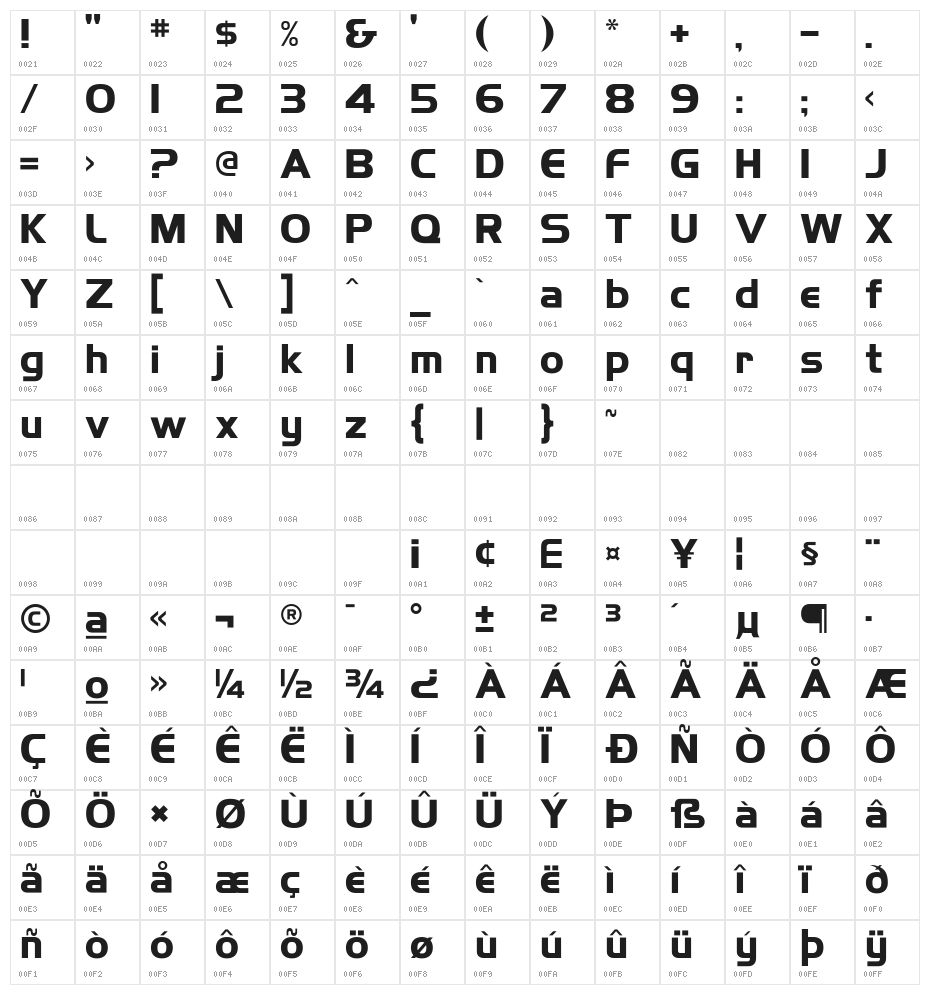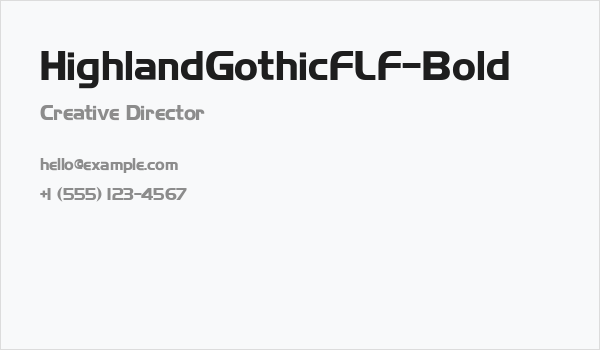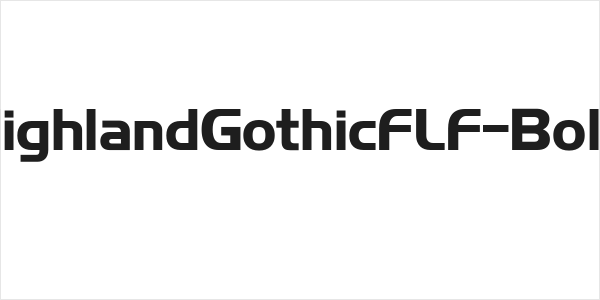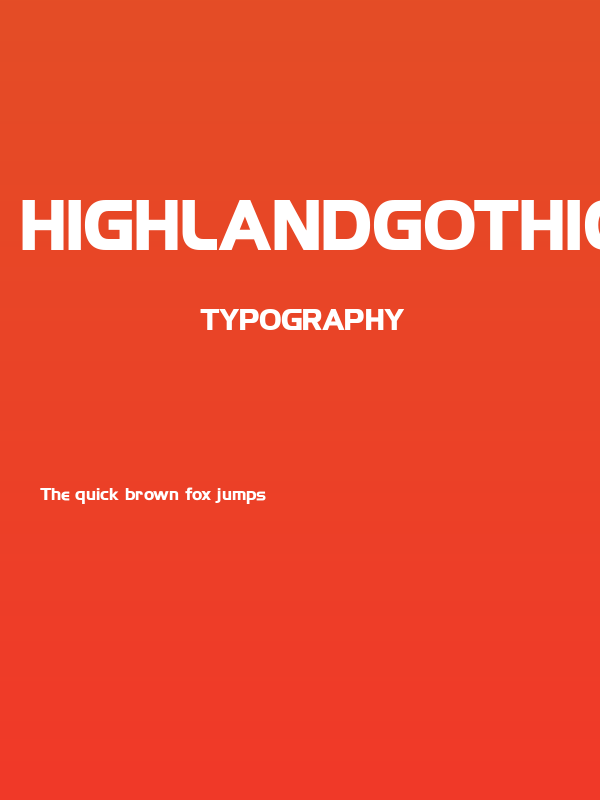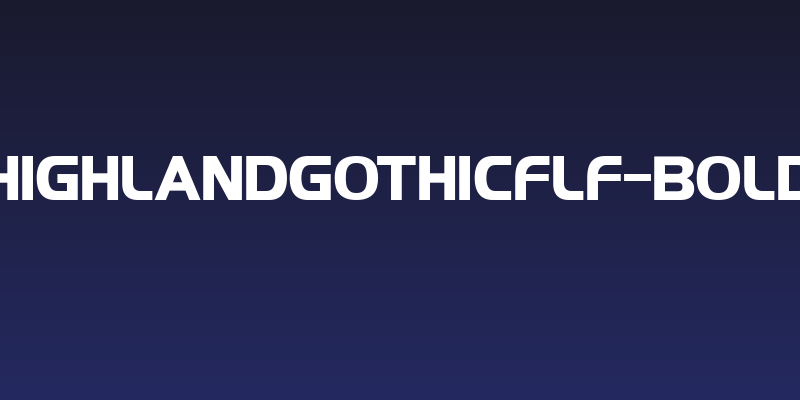
HighlandGothicFLF-Bold Font
HighlandGothicFLF-Bold Description
This font features a bold and impactful design with strong geometric shapes and clean lines. The uppercase and lowercase letters maintain a consistent width, creating a uniform appearance. The numerals are equally bold, ensuring readability and emphasis. Special characters are designed with the same boldness, making them stand out. The overall style is modern and assertive, suitable for making a strong visual statement.
| Proposed Projects | Ideal for headlines, posters, branding, and any project requiring a strong visual impact. |